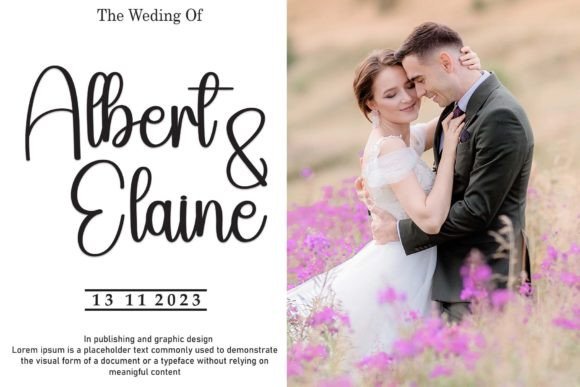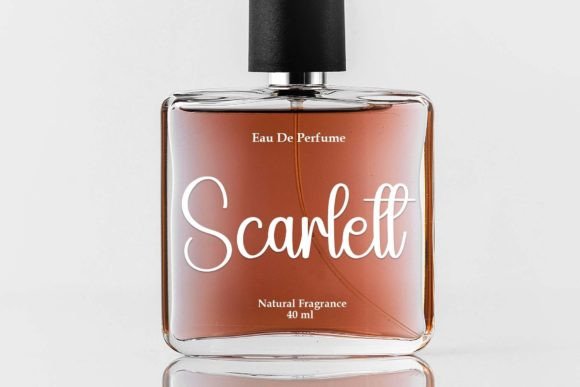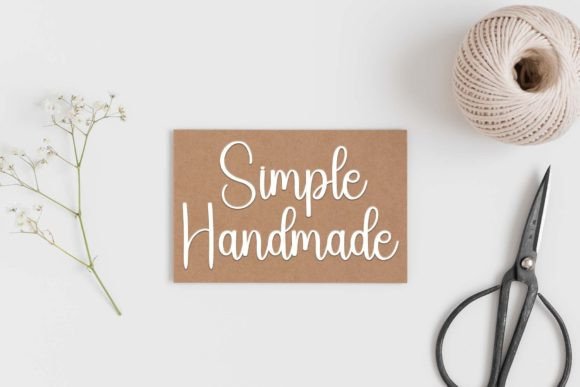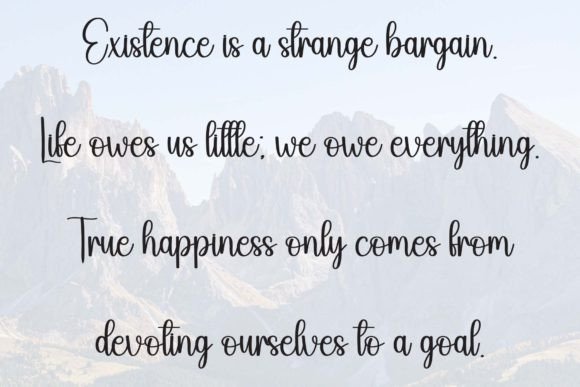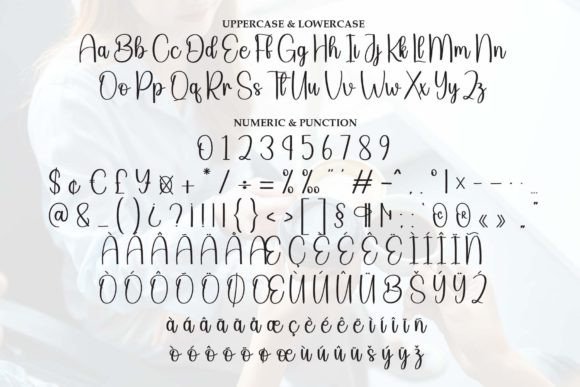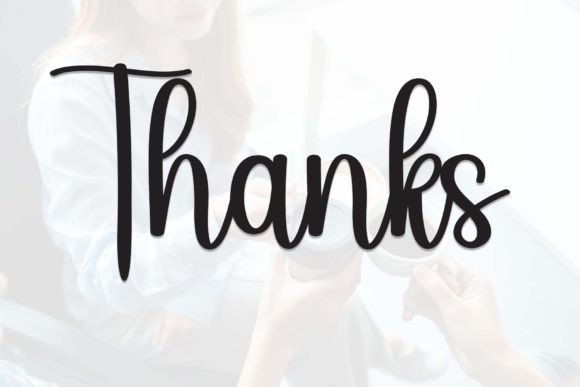
Coffee Break Font: The Perfect Addition to Your Design Arsenal
Are you a designer or crafter looking for a font that can add a touch of warmth and personality to your projects? Look no further than the Coffee Break Font! This sweet and friendly handwritten font is perfect for creating wedding invitations, cards, and other designs that require a fun and playful touch.
What Makes Coffee Break Font So Special?
Coffee Break Font is a unique and versatile font that can elevate your designs to the next level. Its handwritten style gives it a personal and approachable feel, making it perfect for designs that require a human touch. Whether you’re creating wedding invitations, greeting cards, or social media graphics, this font is sure to make your designs stand out.
Key Features of Coffee Break Font
- Cute and Friendly: Coffee Break Font has a sweet and friendly vibe that’s perfect for creating designs that require a playful touch.
- Handwritten Style: The font’s handwritten style gives it a personal and approachable feel that’s perfect for designs that require a human touch.
- Versatile: Coffee Break Font is a versatile font that can be used for a wide range of designs, from wedding invitations to social media graphics.
- Easily Readable: The font is easily readable, making it perfect for designs that require a clear and concise message.
Uses for Coffee Break Font
Coffee Break Font is a versatile font that can be used for a wide range of designs. Here are some ideas to get you started:
- Wedding Invitations: Create beautiful and unique wedding invitations that set the tone for the big day.
- Greeting Cards: Design personalized greeting cards for special occasions, such as birthdays, anniversaries, and holidays.
- Social Media Graphics: Use Coffee Break Font to create fun and engaging social media graphics that showcase your brand’s personality.
- Party Decorations: Create custom party decorations, such as banners and signs, that feature the Coffee Break Font.
Tips for Using Coffee Break Font
Here are some tips for using Coffee Break Font in your designs:
- Pair with Other Fonts: Pair Coffee Break Font with other fonts to create a unique and visually appealing design.
- Use in Combination with Images: Use Coffee Break Font in combination with images to create a design that’s both visually appealing and informative.
Coffee Break Font is a sweet and friendly handwritten font that’s perfect for designers and crafters looking to add a touch of warmth and personality to their projects. With its cute and versatile style, this font is ideal for creating wedding invitations, cards, and other designs that require a fun and playful touch. So why wait? Download Coffee Break Font today and start creating designs that are sure to impress!